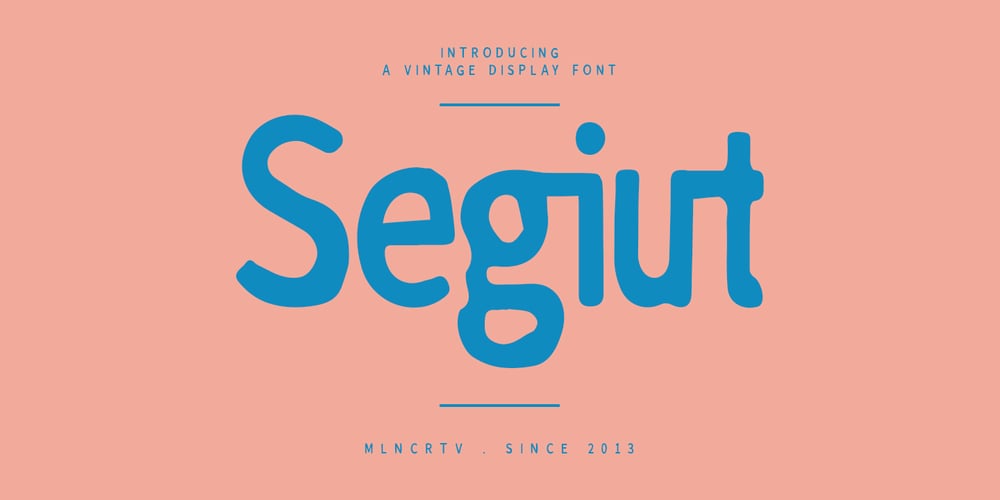
MC Segiut Font Family was designed by Gilang Maulana and published by Maulana Creative. MC Segiut contains 1 styles and family package options. Segiut vintage display font. Segiut with old stroke, fun character with a bit of ligatures. To give you an extra creative work. Segiut font support multilingual language. This font is good for logo design, Social media, Movie Titles, Books Titles, a short text even a long text letter and good for your secondary text font with sans or serif. Make a stunning work with Segiut font.